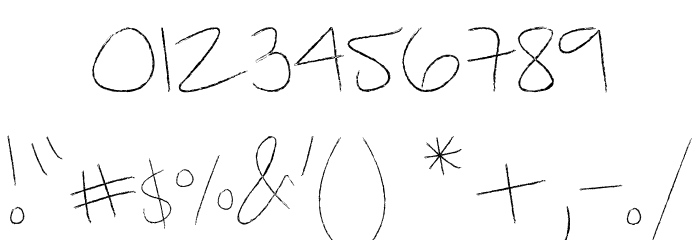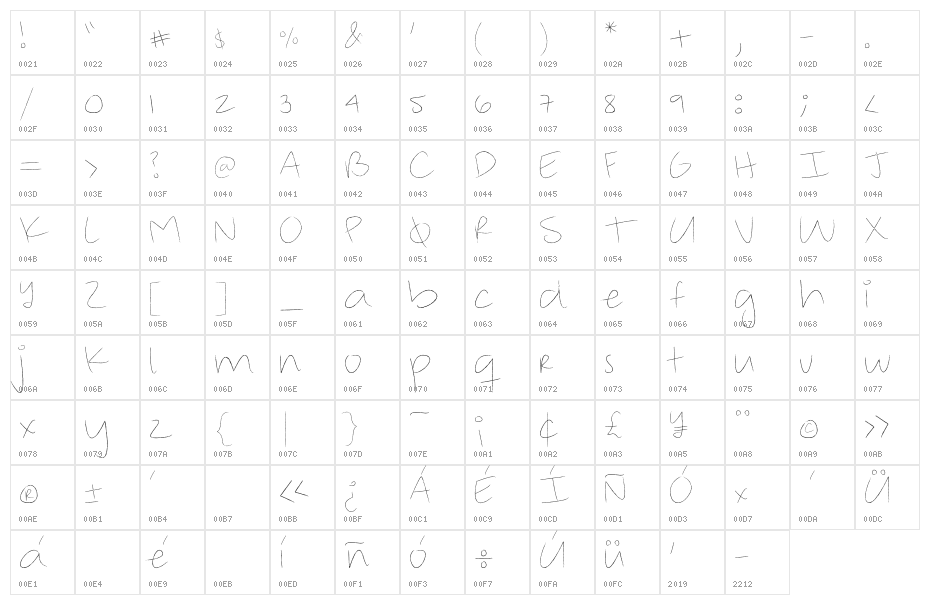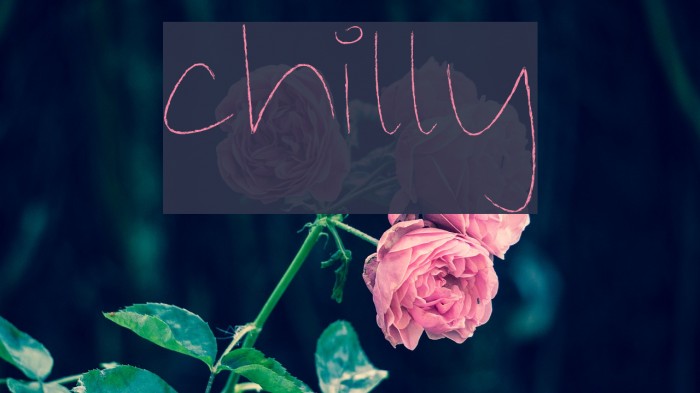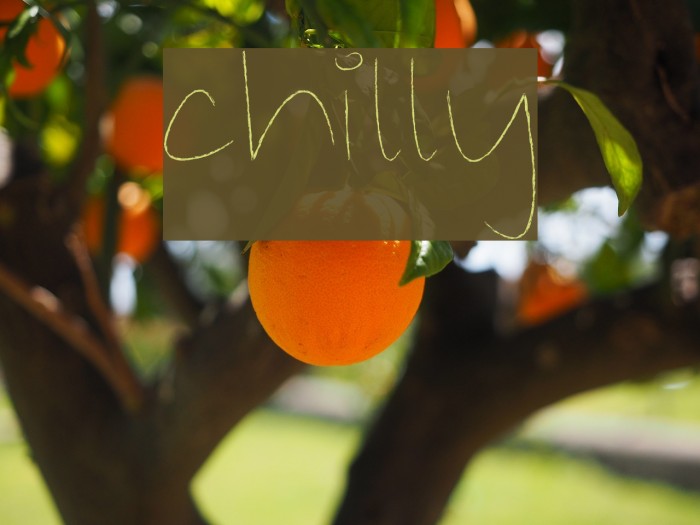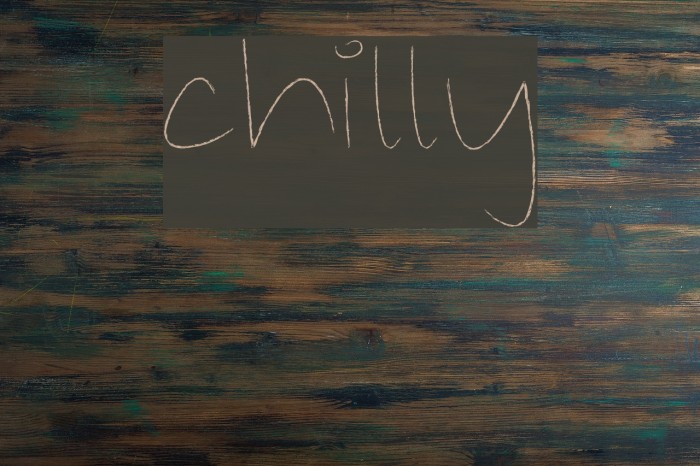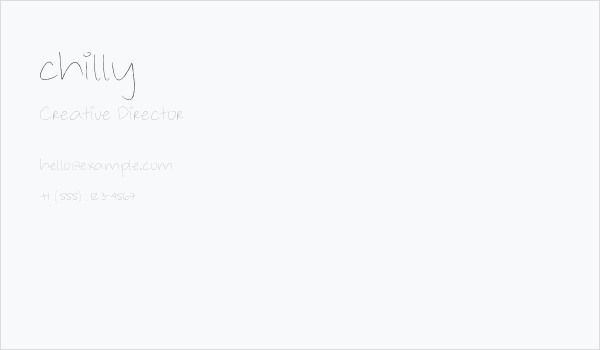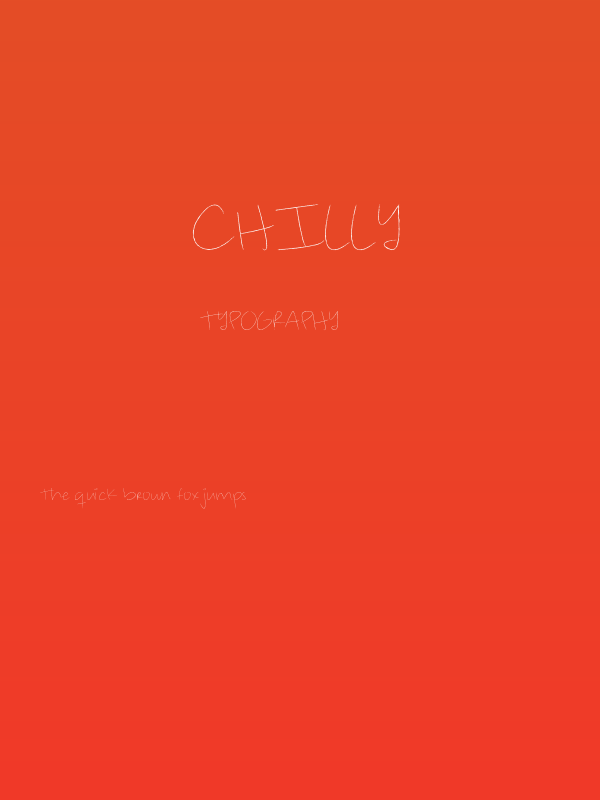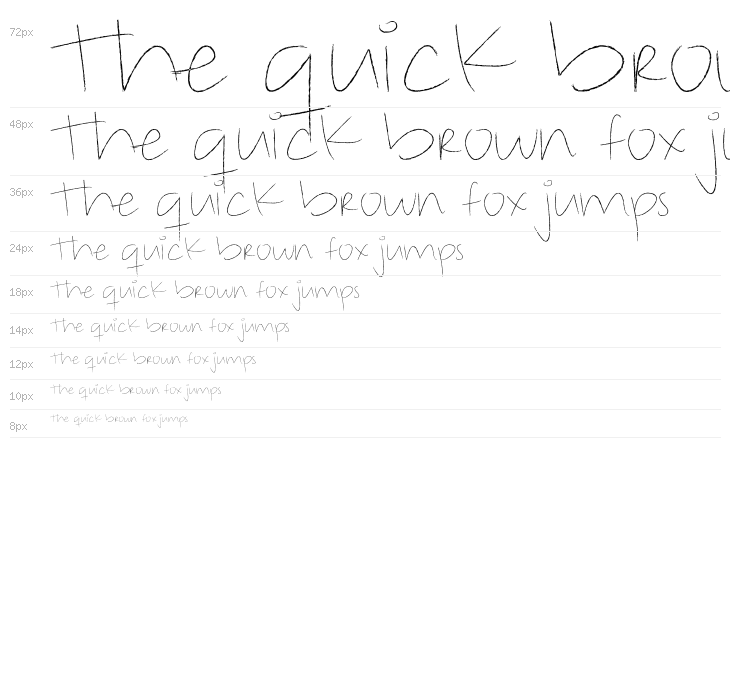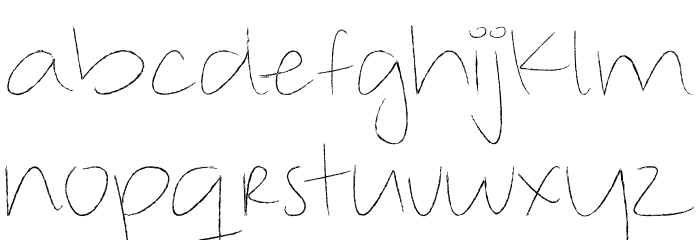
chilly Font
chilly Description
This font exudes a casual, handwritten style with a playful and informal appearance. The characters are slightly irregular, giving it a personal touch reminiscent of quick, spontaneous writing. The strokes are thin and consistent, with a slight wobble that adds to its charm. Uppercase and lowercase letters maintain a cohesive look, while numbers and special characters blend seamlessly into the overall design. The font's lightness and airy feel make it suitable for projects that require a relaxed and approachable aesthetic.
| Use Case | Headlines, Informal text, Personal projects |
| Proposed Projects | Ideal for personal notes, greeting cards, casual invitations, and informal branding. |